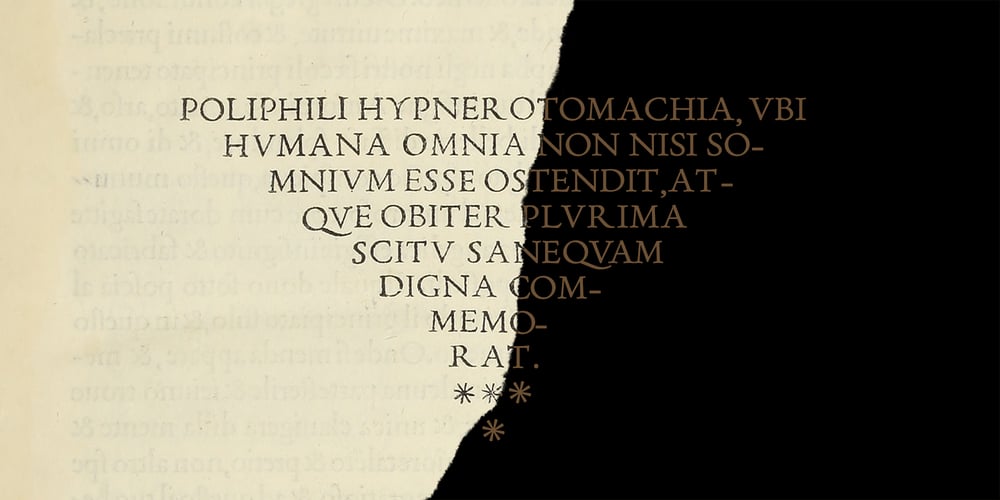
Poliphili Font Family was designed by Francesco Griffo, Leonardo Di Lena and published by Flanker. Poliphili contains 4 styles and family package options. Hypnerotomachia Poliphili, which can be translated in English as “Dreaming Love Fighting of Poliphilus”, is a romance about a mysterious arcane allegory in which the main protagonist, Poliphilo, pursues his love, Polia, through a dreamlike landscape. In the end, he is reconciled with her by the “Fountain of Venus”. The author of the book is anonymous, however, an acrostic formed by the first, elaborately decorated letter in each chapter in the original Italian reads “POLIAM FRATER FRANCISCVS COLVMNA PERAMAVIT”, which means “Brother Francesco Colonna has dearly loved Polia”. Despite this clue, the book has also been attributed to many other authors. The identity of the illustrator is less certain than that of the author. It was first published in Venice, in December 1499, by Aldo Manutio. This first edition presents an elegant and unique page layout, with refined woodcut illustrations in an Early Renaissance style and a refined Roman font, cut by Francesco da Bologna, which is a revised version of the type used in 1496 for the De Aetna of Pietro Bembo. The print quality is very high for the time, but nevertheless it presents many inconsistencies and imperfections due to the non-ideal inking and adherence of the matrix to the paper. For that reason numerous samples of the original have been used to create every single glyph which will result in an appropriate reconstruction and not a mere and humble reproduction. Some letters like J, U and W were extrapolated, because they are not part of the original alphabet of the period. Some letters like Q, X, Y, Z and h have been updated to more modern variants, but the original shape is accessible by Stylistic Alternates Opentype Feature, which also changes the shape of the V and the v. The original numerals zero, one, tree, four and six have been accompanied by reconstructions of the missing numbers and extended by modern figures. Finally, swashed lower cases and original scribal abbreviations were also included. The font has joined by a matching Italic variant, closely inspired from Aldo Manuzio’s 1501 “Vergilius”, the first book printed entirely in Italic type by Francesco da Bologna.